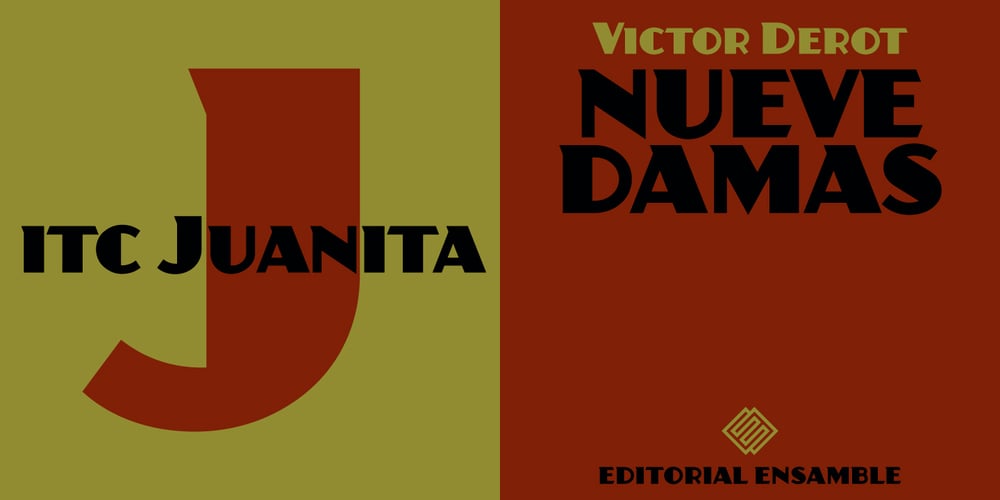
ITC Juanita
ITC Juanita font
ITC Juanita Font Family was designed by Luis Siquot and published by ITC. ITC Juanita contains 6 styles and family package options. ITC Juanita is the work of Argentinian-born designer Luis Siquot and was inspired by a text set only with woodcuts which he was reading during a long international flight. ITC Juanita is a series of six distinct typefaces which Siquot sees as a personal reinterpretation of designs that originated in the 1930s and 40s and were still popular during his childhood in the 1950s. For me, Juanita is like a toy, charming, expressive, and also dramatic,” says Siquot. The ITC Juanita series offers designers a range of variations based on similar structures, each variation with its own look.”